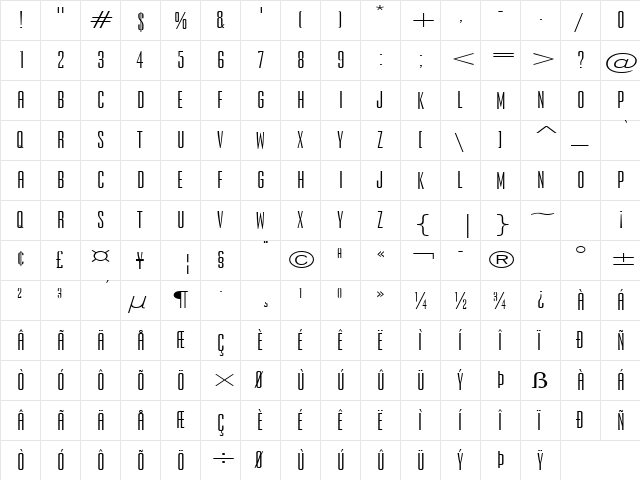
Expel Extended Normal
Design Context for Expel Extended Typeface
Expel Extended takes a measured approach to typography — its balanced proportions and neutral character make it a reliable workhorse for both digital and print work.
Pro Tip: Use Expel Extended in both headline and body roles to test its range before committing to a single application.